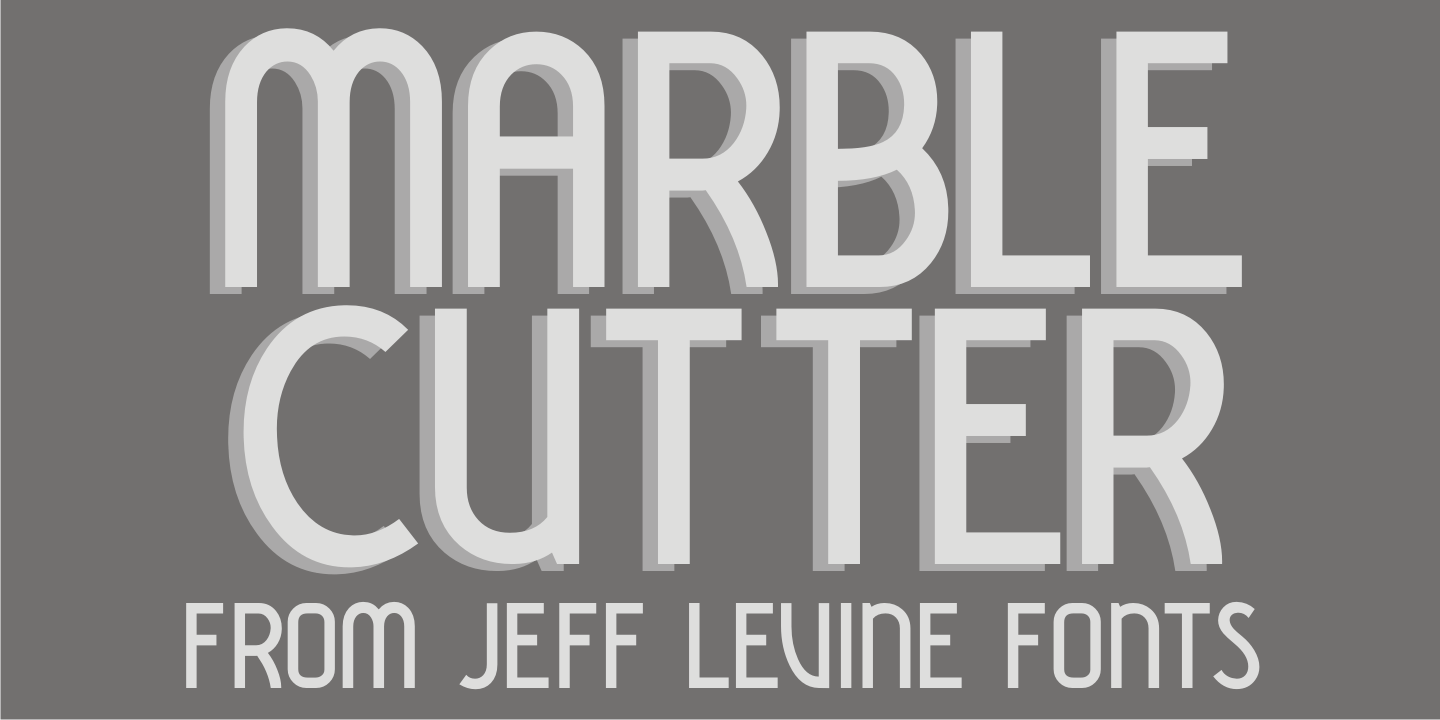
Marble Cutter
A set of vintage dies for stamping text into marble headstones or other monuments manufactured by The Vermont Marble Company was the basis for Marble Cutter JNL.
The Vermont Marble Company was in business from the 1880s until 1976, when the company was acquired by OMYA, Inc.
The original company (also known as Vermarco) supplied marble for everything from the Jefferson Memorial to the United Nations building and dozens of other historic structures in-between.